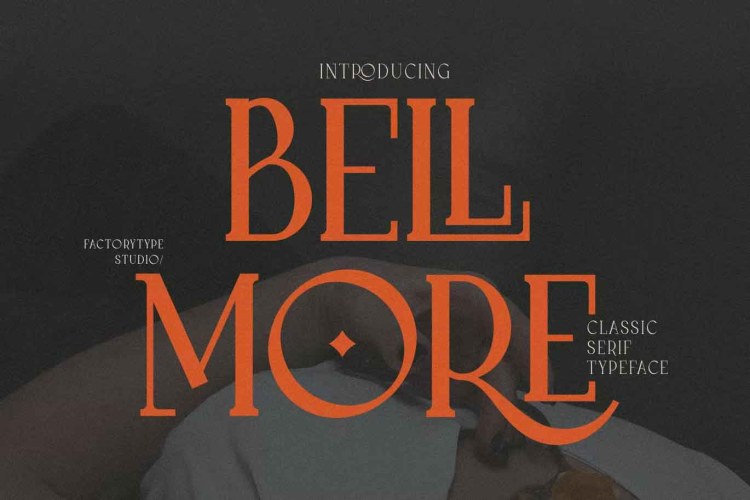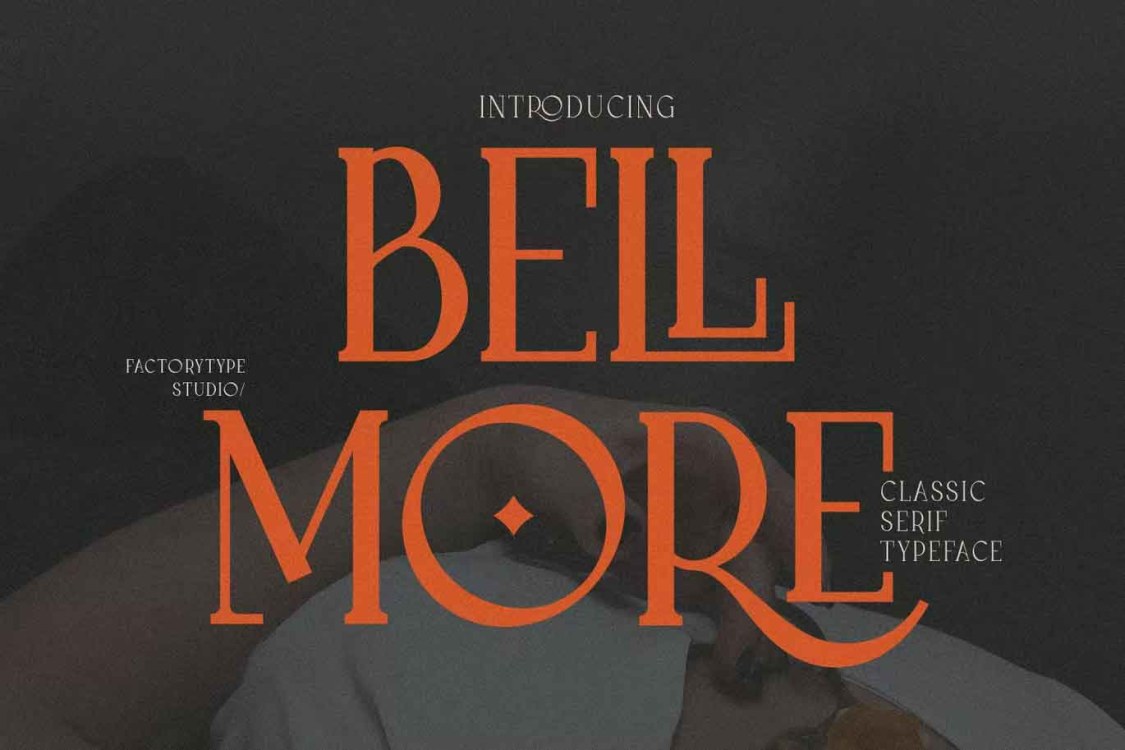
BellMore Font
Bellmore is a beautiful serif font family with a classic feel to it. The elegant design is the result of combining modern and vintage elements. The different weights give you a lot of flexibility when it comes to choosing the right typographic color for your project. The available Ligatures and Italic styles offer a wide range of characters to give your project design an unique design.
Where BellMore Font works best
Reports, white papers and book interiors hold the eye longer when the text face has real serifs; BellMore Font keeps that rhythm without looking old-fashioned.
Food, spirits and cosmetics brands lean on serif wordmarks to suggest age and care. BellMore Font gives that signal at wordmark size.
Set BellMore Font for the body of an award or a diploma and keep the recipient name in a script; the pairing is what makes a document feel official.
What kind of work does BellMore Font suit?
It sits in the Serif Fonts group and reads as classic, elegant, modern, serif. That makes it a candidate wherever those qualities help: headings, packaging, social graphics and brand work. Set it at the size you plan to use before deciding.